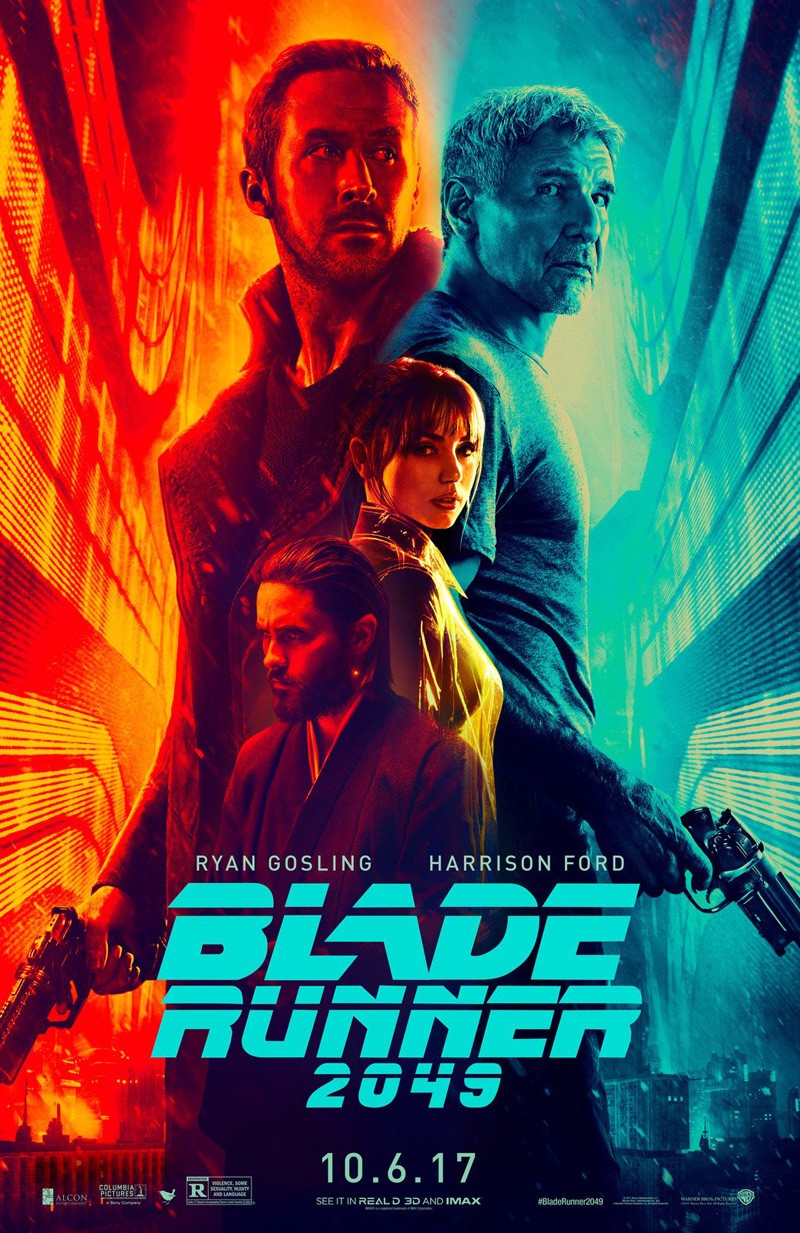
Blade Runner 2049 Font
Fonts in UseBlade Runner 2049 is a 2017 science fiction film directed by Denis Villeneuve and serves as a sequel to the original Blade Runner, following a new replicant hunter named Officer K as he uncovers a long-buried secret that could potentially lead to chaos in society.
The movie poster features a font that resembles Blade Runner Movie Font designed by Phil Steinschneider, which was inspired by the original 1982 film title. The actor names on the poster are written in FF Din, while the intro and credits text seen in the film trailer uses the geometric sans serif font called Brandon Grotesque.